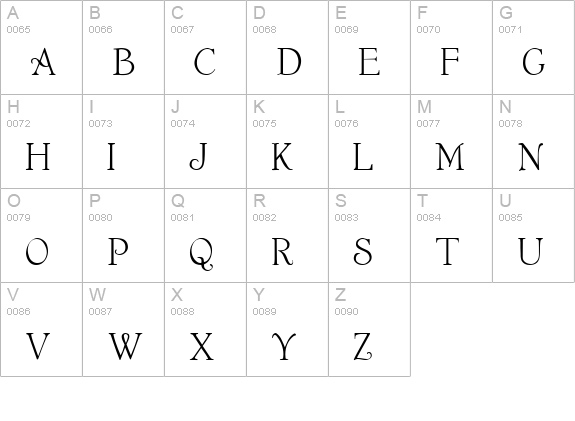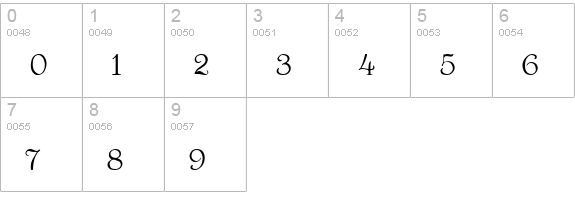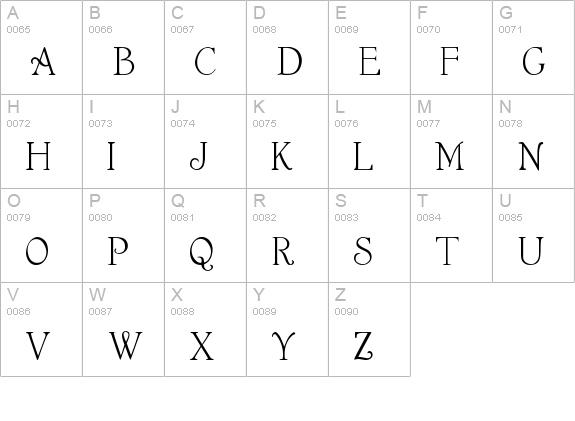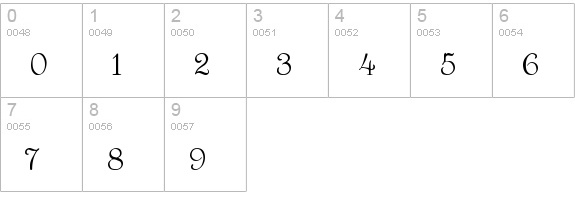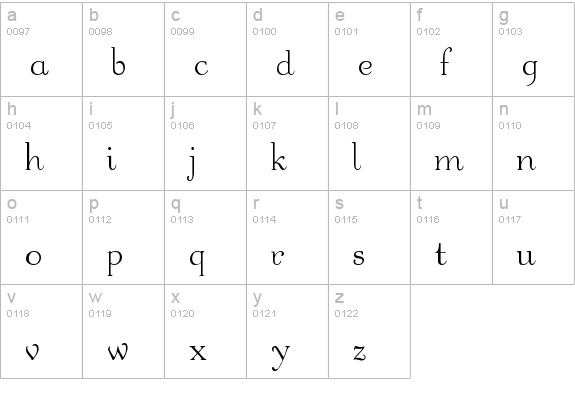
Garton Font Details
Introducing Garton, a captivating and versatile font that exudes elegance and sophistication. With its unique blend of modern and classic elements, Garton is the perfect choice for a wide range of design projects. This incredible font boasts clean lines and a timeless appeal, making it ideal for both print and digital applications. Whether you're designing a logo, creating a website, or crafting eye-catching marketing materials, Garton will effortlessly elevate your designs to new heights. Garton's carefully crafted letterforms are a testament to its exceptional quality. Each curve and stroke has been meticulously designed to ensure legibility and visual harmony. The result is a font that is not only visually stunning but also highly readable in various sizes and contexts. What sets Garton apart is its versatility. This font effortlessly adapts to any design concept or branding strategy, making it a must-have for designers and creatives alike. Its clean and modern aesthetic can be used to convey a sense of professionalism and sophistication, while its subtle curves create an inviting and approachable atmosphere. And the best part? Garton is absolutely free! That's right, this incredible font is freely available to download at FontsMarket.com. Now you can enjoy the beauty and versatility of Garton without breaking the bank. Whether you're a seasoned designer or just starting out, Garton is the perfect addition to your font library. So why wait? Download Garton today and unleash your creativity with this remarkable font. With its timeless appeal, exceptional quality, and the added bonus of being free, Garton is sure to become a go-to choice for designers around the world. Don't miss out on this fantastic opportunity to elevate your designs and make a lasting impression with Garton font.